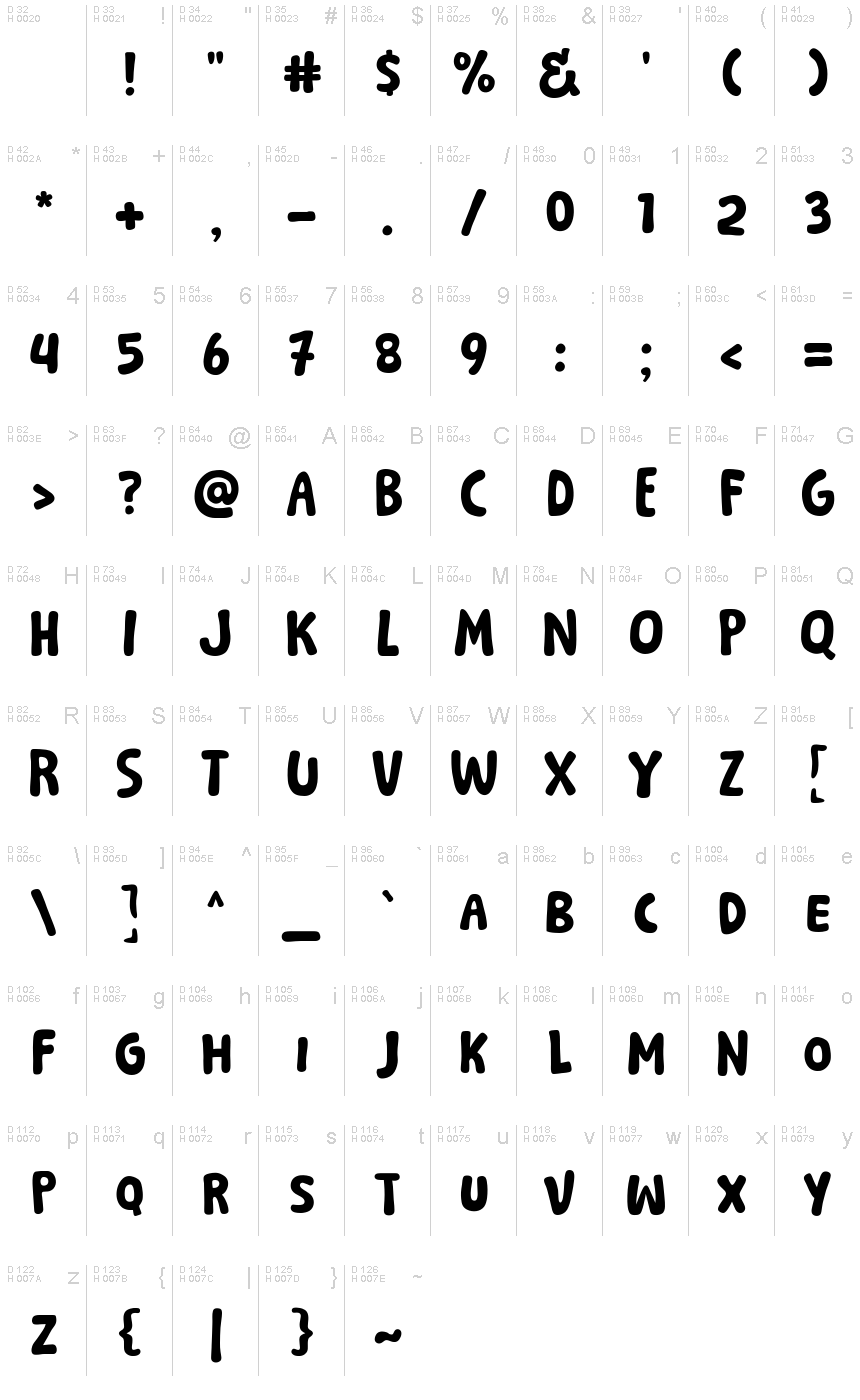
Corner Cafe
Corner Cafe font, designed by Khurasan, exudes a playful charm that captures the essence of a cozy diner. Its cartoonish style radiates warmth and friendliness, drawing the eye with bold, rounded letters that invite playful interaction. The exaggerated curves and lively spacing give each character a whimsical personality, making the font perfect for designs intended to evoke nostalgia or joy.
Ideal for café menus, children’s book covers, or vibrant branding projects, Corner Cafe brings an inviting atmosphere to any text-based project. Its distinctive appearance ensures that it stands out in signage and advertisements while maintaining a light-hearted appeal. Embrace Corner Cafe for projects that require a dash of creativity and fun!